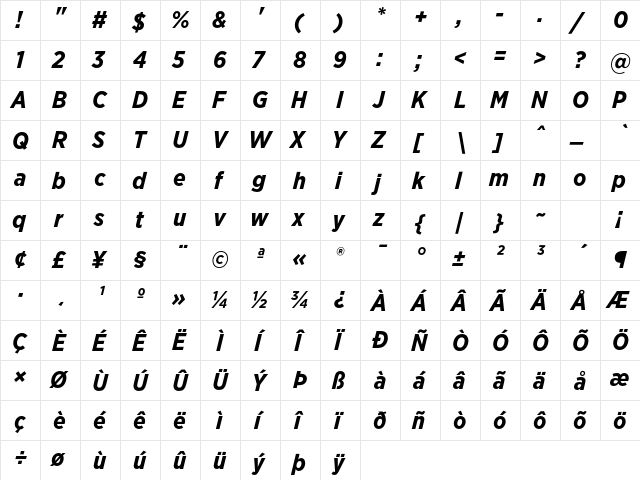
Gotham Narrow Bold Italic Font Preview
| Foundry | Hoefler & Frere-Jones |
| Designer | Hoefler & Frere-Jones |
Design Context for Gotham Narrow Typeface
Gotham Narrow offers clean, dependable letterforms without strong stylistic allegiance, making it a practical choice for designers who need flexibility. The slanted form adds forward momentum and visual energy. Its bold stroke weight gives it real presence on the page. Its narrow stance lets it pack a punch even in space-constrained designs.
Pro Tip: Try Gotham Narrow for annotation and caption copy alongside an upright companion — the contrast in angle creates a dynamic but ordered typographic system.